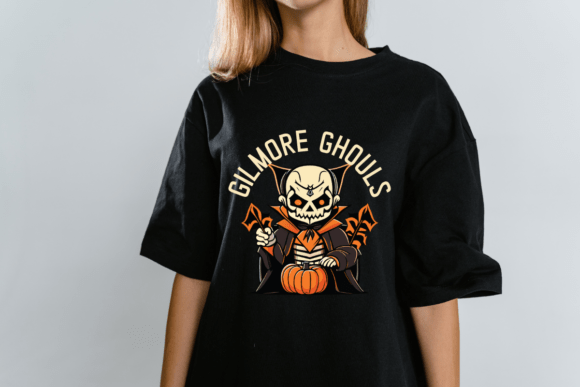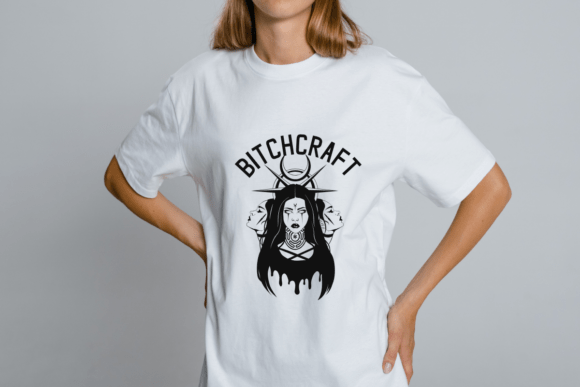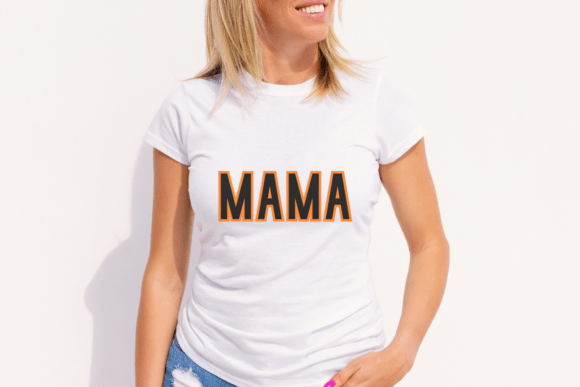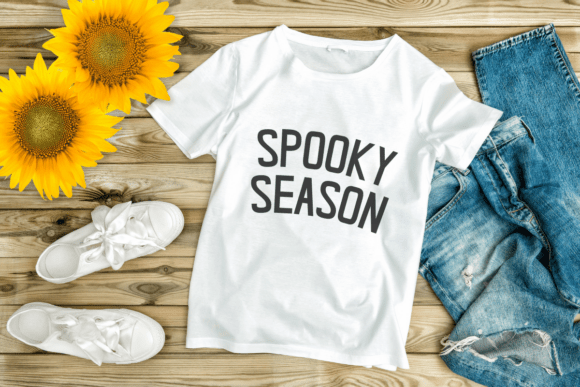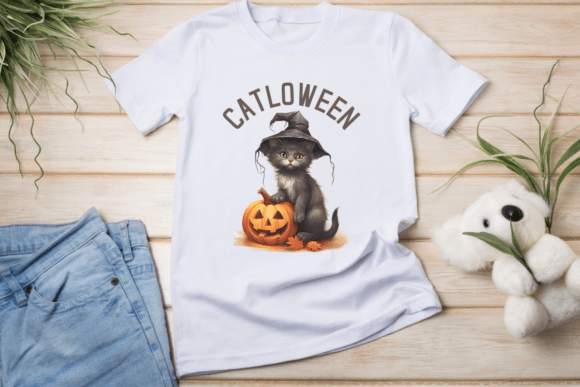
Bullsheet Font: Elevate Your Designs with Sleek and Stylish Typography
In the world of design, typography plays a crucial role in conveying a message, expressing creativity, and capturing the audience’s attention. For creators who value clean aesthetics and strong visual impact, the Bullsheet font is an excellent choice. This sleek and stylish condensed sans serif font is designed to elevate your designs, whether you’re working on print-on-demand projects, film titles, branding, logos, or modern packaging.
The Characteristics of Bullsheet Font
Bullsheet font boasts tall, narrow letterforms that exude elegance and sophistication. Its condensed style allows for a strong visual impact, making it perfect for designs where space is limited. The elegant spacing between letters adds to the font’s sleek appearance, creating a harmonious and balanced look. The sans serif design ensures a clean and modern aesthetic, making it versatile enough to fit both professional and playful designs.
Ideal for Print-on-Demand Projects
For designers and crafters working on print-on-demand projects, Bullsheet font is an excellent choice. Its stylish and condensed design makes it perfect for:
- T-shirts: Create eye-catching and fashionable designs that will stand out on any tee.
- Posters: Design bold and attention-grabbing posters that will dominate any wall space.
- Mugs: Add a touch of elegance to your mug designs with Bullsheet font’s sleek and stylish typography.
- Tote bags: Create stylish and functional designs that will make your tote bags stand out.
Beyond Print-on-Demand: Film Titles, Branding, Logos, and Packaging
Bullsheet font’s versatility extends far beyond print-on-demand projects. Its sleek and stylish design makes it an excellent choice for:
- Film titles: Add a touch of sophistication and glamour to your film titles with Bullsheet font’s elegant design.
- Branding: Create a strong and memorable brand identity with Bullsheet font’s bold and condensed style.
- Logos: Design a logo that stands out with Bullsheet font’s sleek and modern aesthetic.
- Modern packaging: Elevate your packaging designs with Bullsheet font’s clean and sophisticated typography.
Crafting Projects and Minimalist Branding
Bullsheet font is not just limited to commercial designs; it’s also perfect for crafting projects and minimalist branding. Its elegant and condensed design makes it an excellent choice for:
- Crafting projects: Add a touch of sophistication to your crafting projects, such as handmade cards, invitations, or DIY decorations.
- Minimalist branding: Create a strong and memorable brand identity with Bullsheet font’s clean and modern aesthetic.
Cinematic Visuals and Professional Designs
Bullsheet font’s sleek and stylish design makes it an excellent choice for cinematic visuals and professional designs. Its bold and condensed style adds a touch of sophistication and glamour to any design, making it perfect for:
- Cinematic visuals: Elevate your cinematic visuals with Bullsheet font’s elegant and modern aesthetic.
- Professional designs: Create a strong and memorable brand identity with Bullsheet font’s clean and sophisticated typography.
In conclusion, Bullsheet font is a versatile and stylish condensed sans serif font that’s perfect for designers and crafters who value clean aesthetics and strong visual impact. Its tall, narrow letterforms, elegant spacing, and sleek design make it an excellent choice for a wide range of projects, from print-on-demand designs to film titles, branding, logos, and modern packaging. Whether you’re working on a professional design or a crafting project, Bullsheet font is sure to elevate your designs and add a touch of sophistication and glamour.